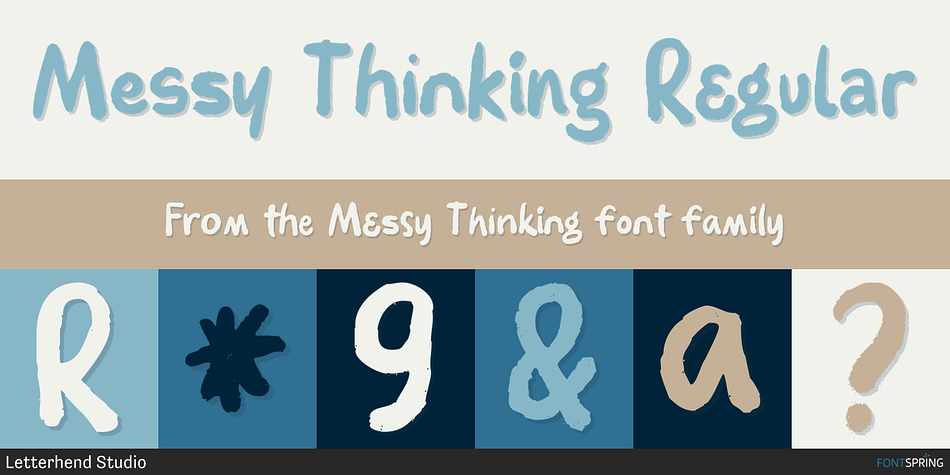
Messy Thinking Regular
Designed by Hendry Juanda, Messy Thinking is a hand drawn font family published by Letterhend Studio.
Messy Thinking is a casual hand writing. The natural shape make this font looks a natural writing instead of typing a font. This type of font perfectly made to be applied especially in logo, and the other various formal forms such as invitations, labels, logos, magazines, books, greeting / wedding cards, packaging, fashion, make up, stationery, novels, labels or any type of advertising purpose.
- Alternates & Ligatures